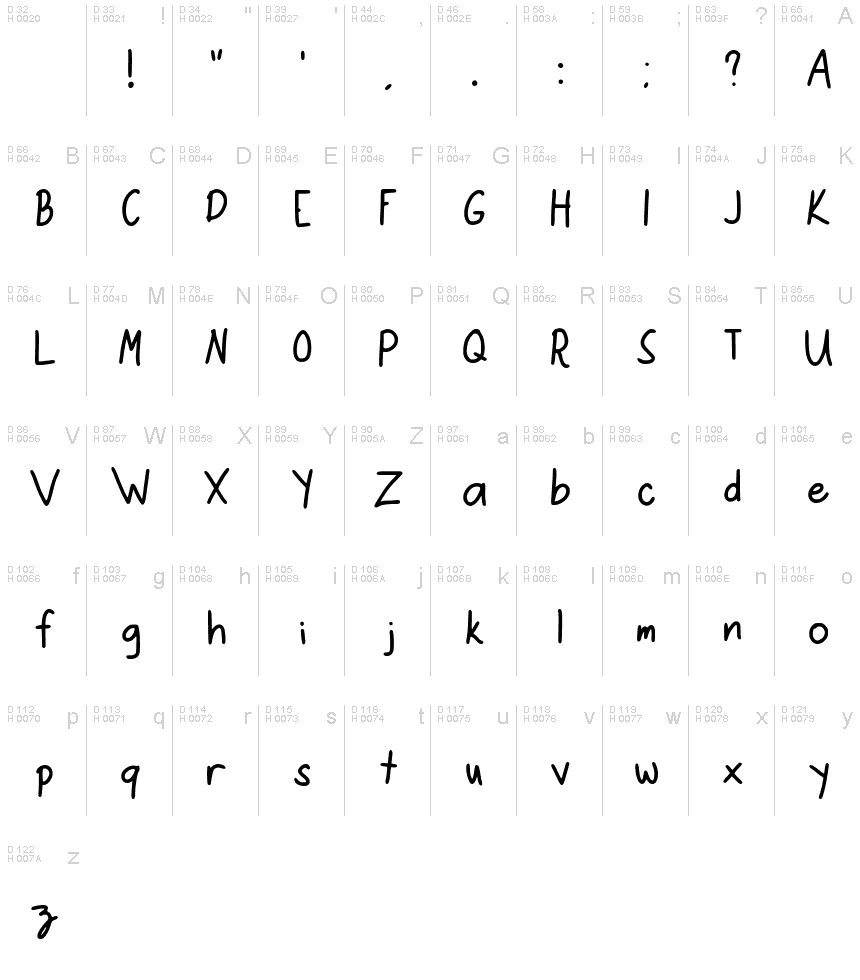
Rins Handwriting Regular
Rins Handwriting, crafted by renowned designer Rin Limbo, is a captivating and versatile casual handwritten font. With its semi-light weight, this font adds a touch of elegance to any project. Ideal for personal blogs, lifestyle magazines, and creative portfolios, Rins Handwriting effortlessly conveys authenticity and warmth. Whether you're designing invitations for an intimate gathering or curating an inspiring website for a boutique café, this font will infuse your creations with a unique charm. Embrace the art of storytelling and let Rins Handwriting lend its delightful flair to your next venture.